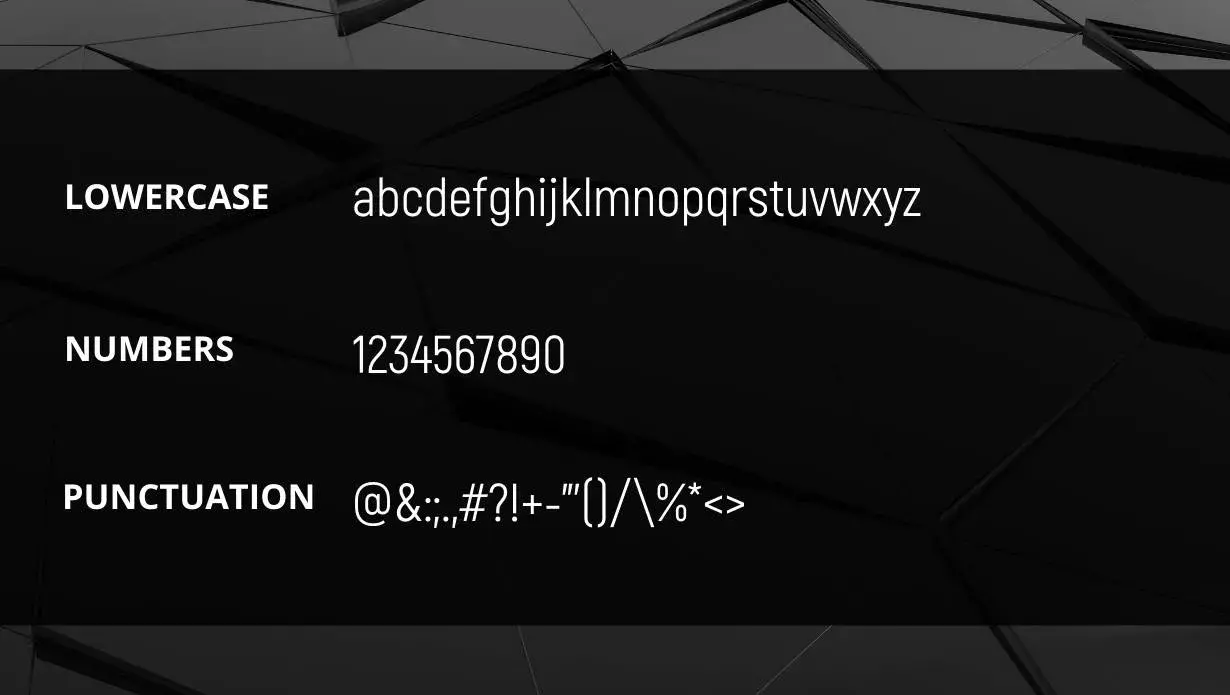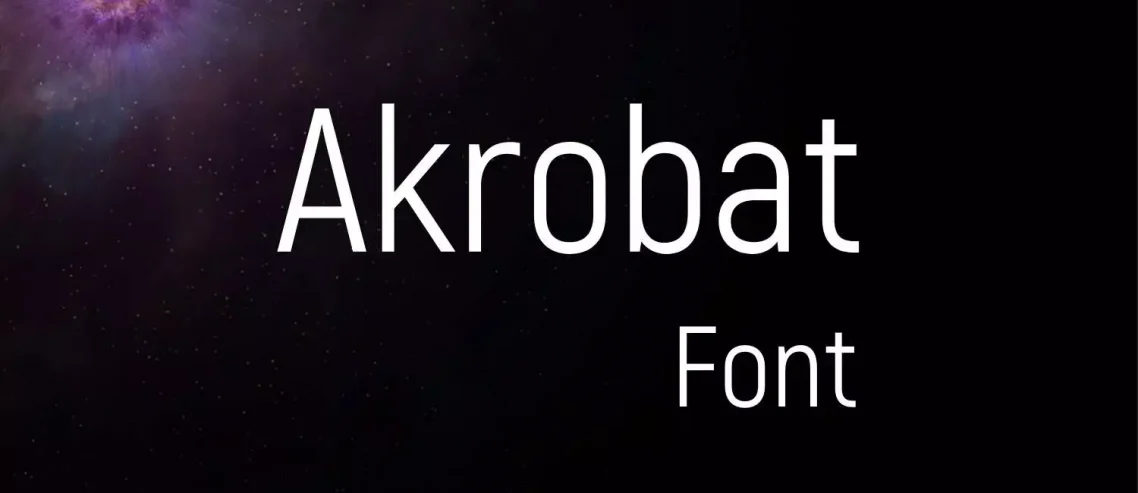
Akrobat Font was created by Kris Sowersby in 2013. It is a sans serif typeface inspired by the popular nineteenth-century typeface Akzidenz-Grotesk, featuring increased contrast and more defined details.
The google typeface has included Opentype features and Truetype features, and it also has a pairing personality with bjorn font.
| Name | Akrobat Font |
| Designer | Kris Sowersby |
| Style | Sans-serif |